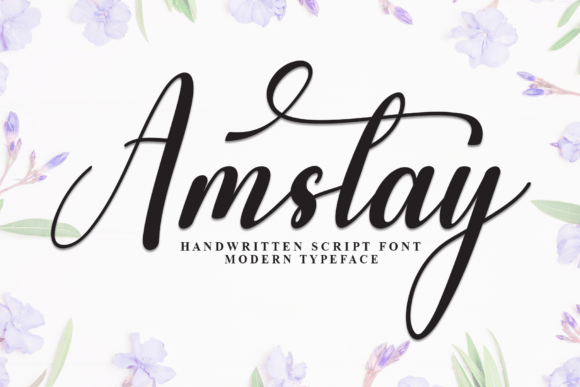
The Designer’s Delight: Amstay Font
I’ll never forget the time I was working on a branding project for a trendy boutique, and I just couldn’t find the right font to capture the essence of their stylish and modern vibe. The client wanted something that exuded artistic flair and sophistication, but still felt fresh and contemporary. That’s when I stumbled upon Amstay Font, and it was love at first sight! 💕
Amstay Font: A Stylish Script Font
Amstay is a stunning script font that embodies the perfect blend of artistic expression and modern elegance. With its fluid brush strokes, dynamic curves, and expressive letterforms, it instantly captures the essence of hand-painted calligraphy with a modern twist. This font is ideal for a variety of design projects, including logos, invitations, packaging, and social media graphics.
So, what makes Amstay Font so special? Here are some things I love about it:
- ✨ Fluid brush strokes: Amstay’s fluid brush strokes give it a natural, hand-painted feel that’s perfect for creating artistic and expressive designs.
- ✅ Dynamic curves: The font’s dynamic curves add a touch of elegance and sophistication to any design.
- 💃 Expressive letterforms: Each letterform is uniquely designed to convey a sense of artistic flair and creativity.
- 📈 Versatility: Amstay is incredibly versatile and can be used for a wide range of design projects, from logos and invitations to packaging and social media graphics.
And, like any font, Amstay has its quirks:
- 🤔 Limited use in body text: Due to its script nature, Amstay may not be the best choice for body text, especially for longer paragraphs.
- ⚠️ Some letter combinations: As with any script font, some letter combinations may not flow as smoothly as others.
The Designer Inspiration Behind Amstay
Amstay Font was inspired by the world of hand-painted calligraphy. The designer, who remains anonymous, wanted to create a font that captured the essence of artistic expression and modern elegance. With Amstay, they aimed to create a font that would add a creative and sophisticated touch to any design.
| What is Amstay Font best used for? | Amstay Font is ideal for logos, invitations, packaging, and social media graphics that require a touch of artistic flair and modern elegance. |
| Is Amstay Font suitable for body text? | Due to its script nature, Amstay Font may not be the best choice for body text, especially for longer paragraphs. |